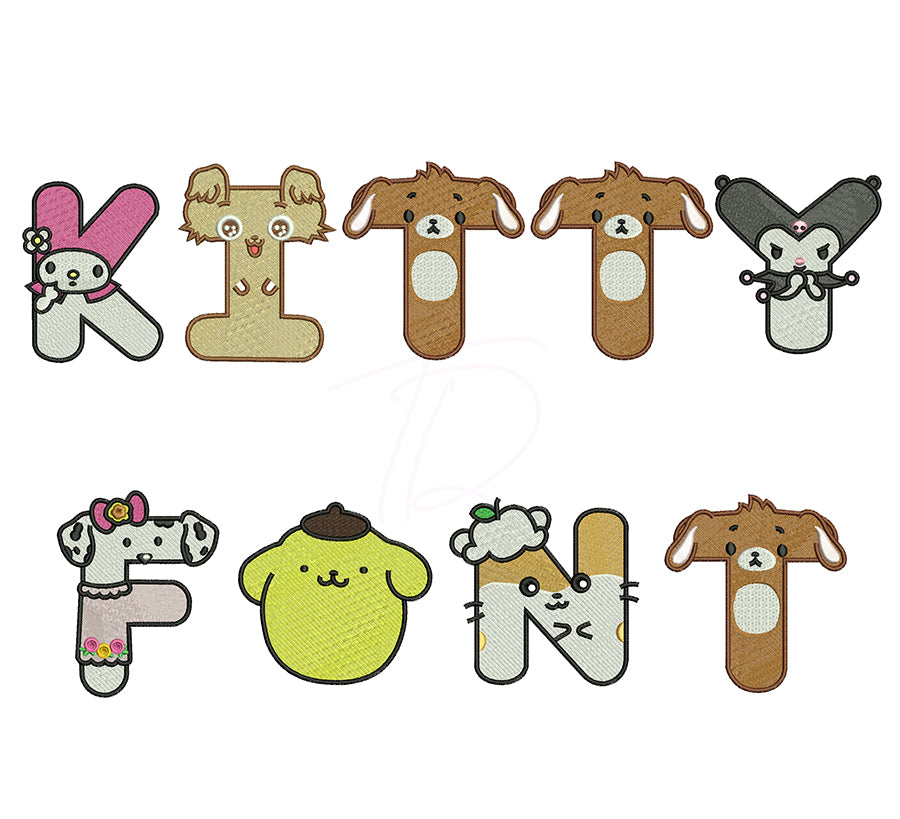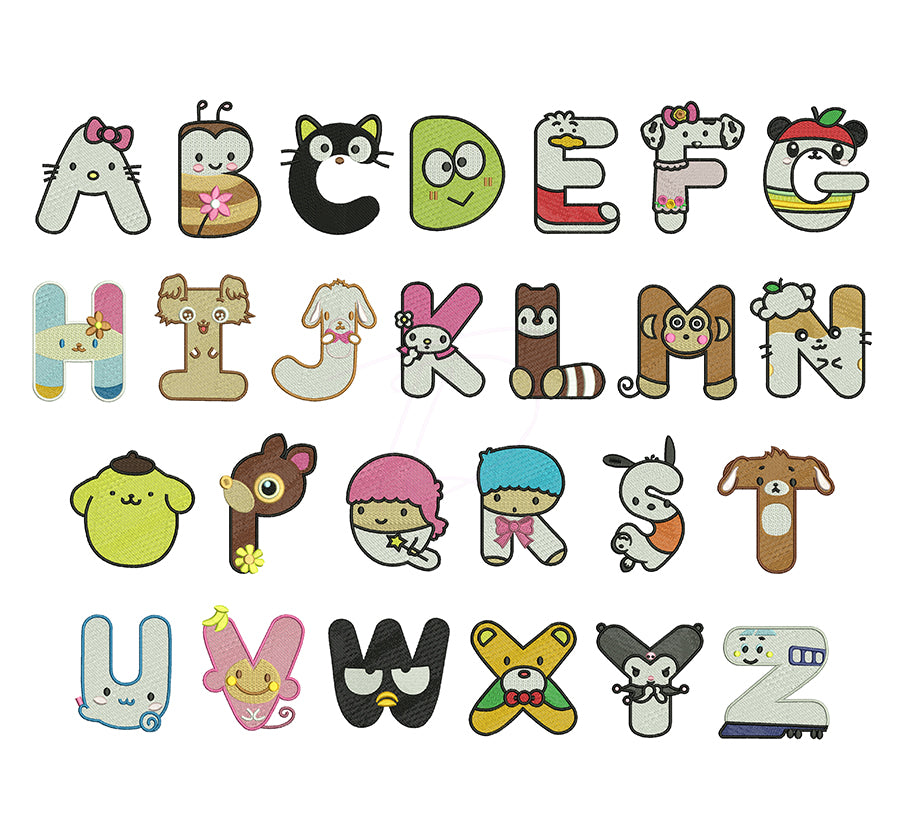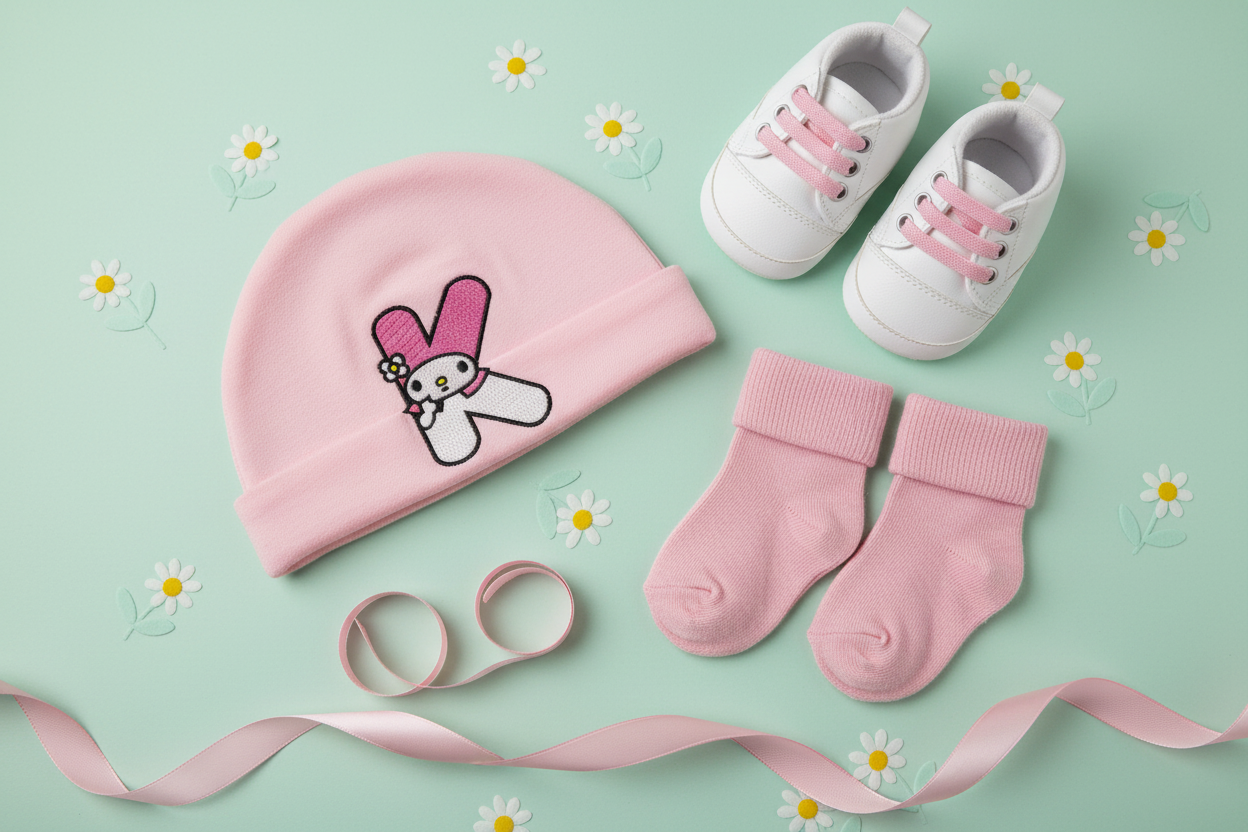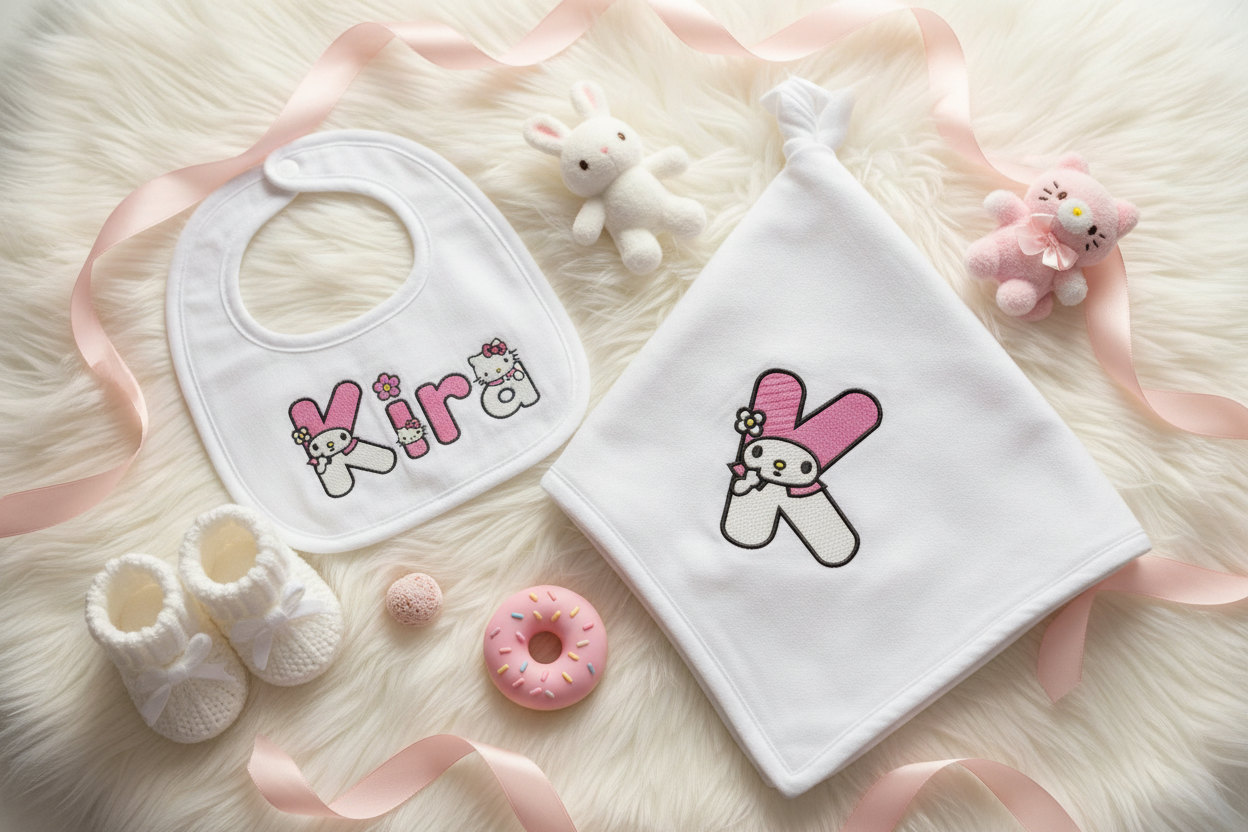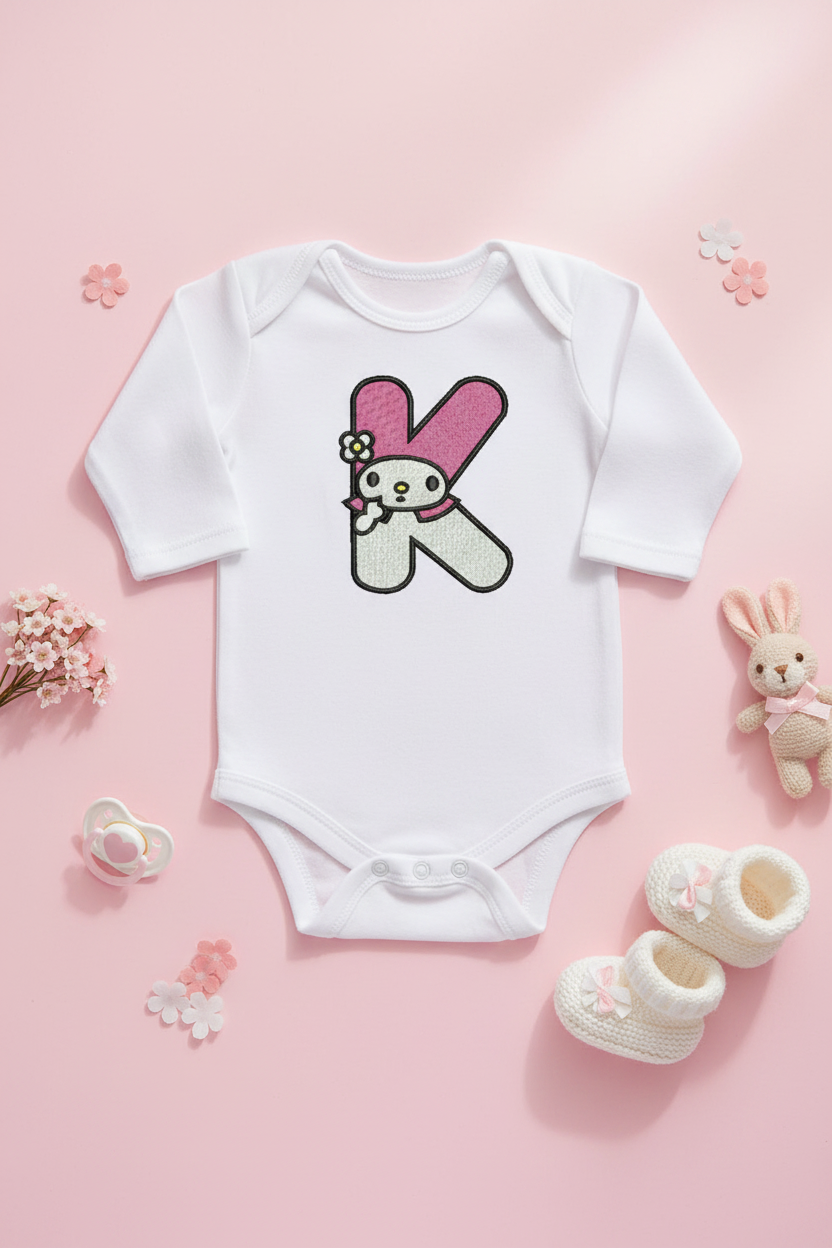
Kitty Embroidery Font for Baby. BX format included.
Kitty Embroidery Font for Baby – An adorable, cute embroidery font designed especially for baby items. Available in 3 sizes: 2", 3", and 4".
- Characters: A-Z (26 letters)